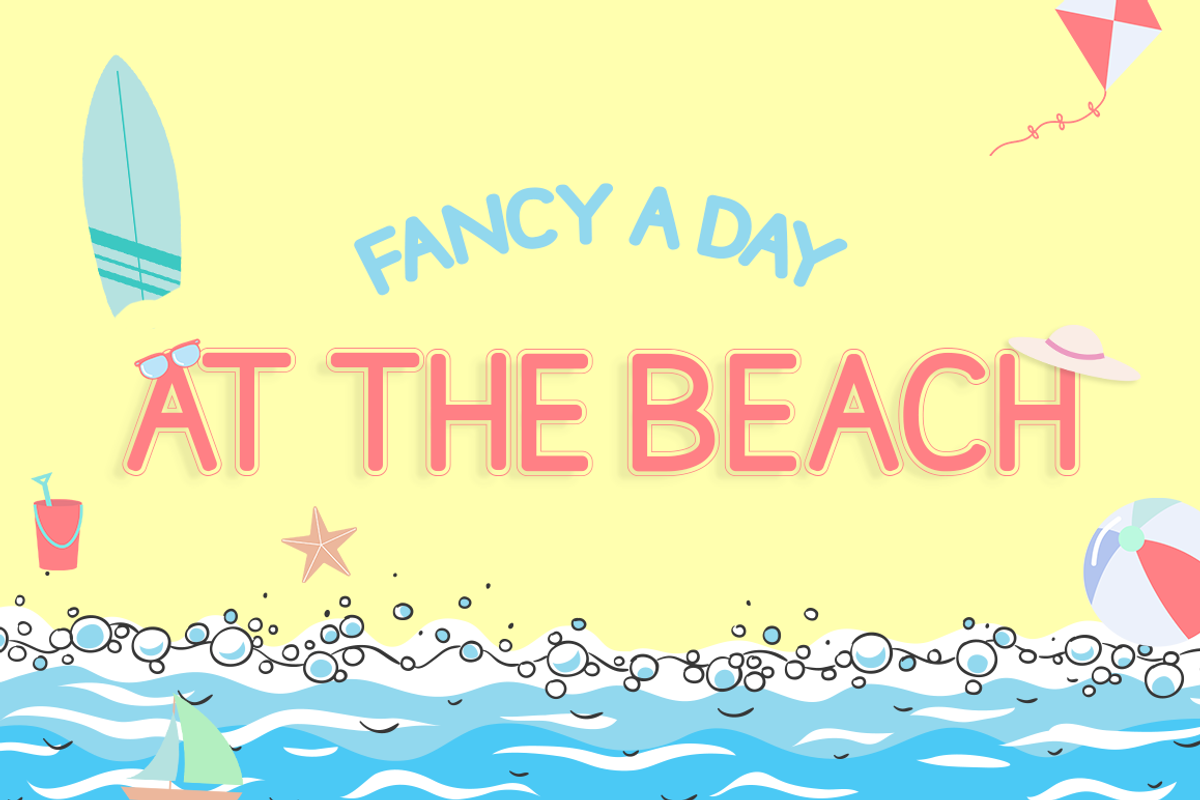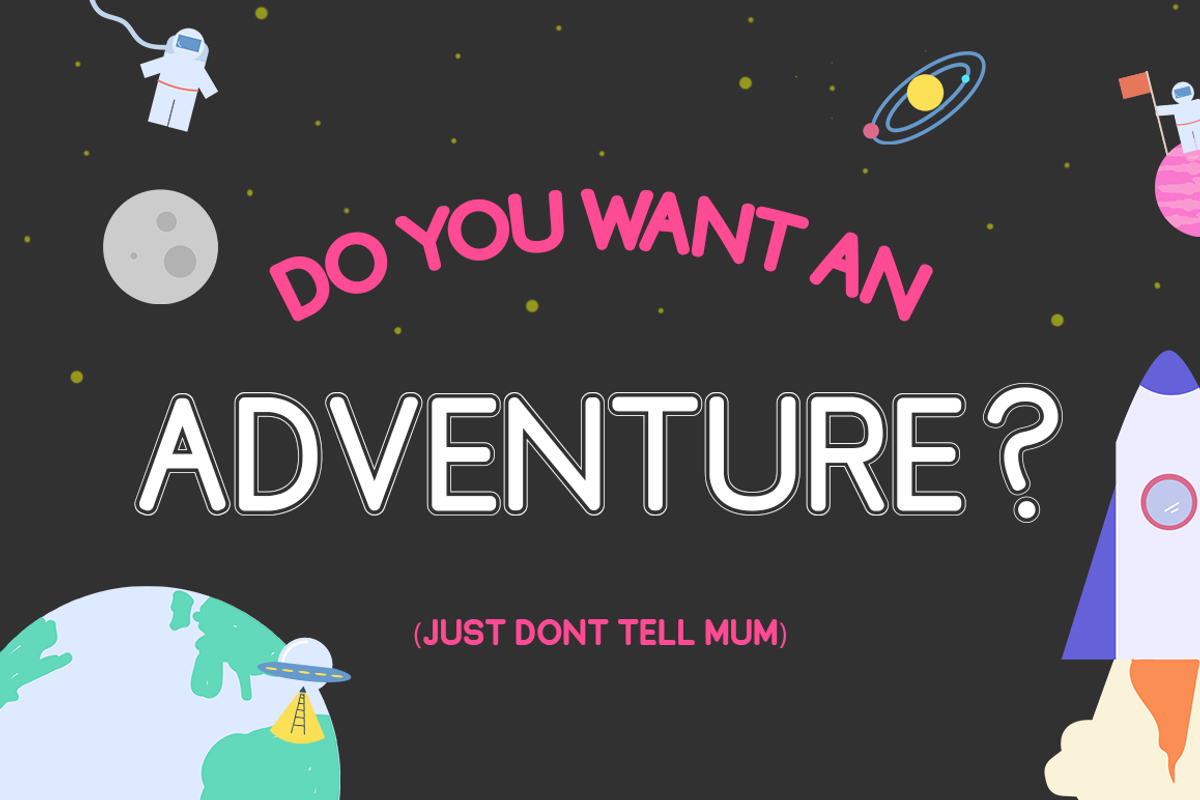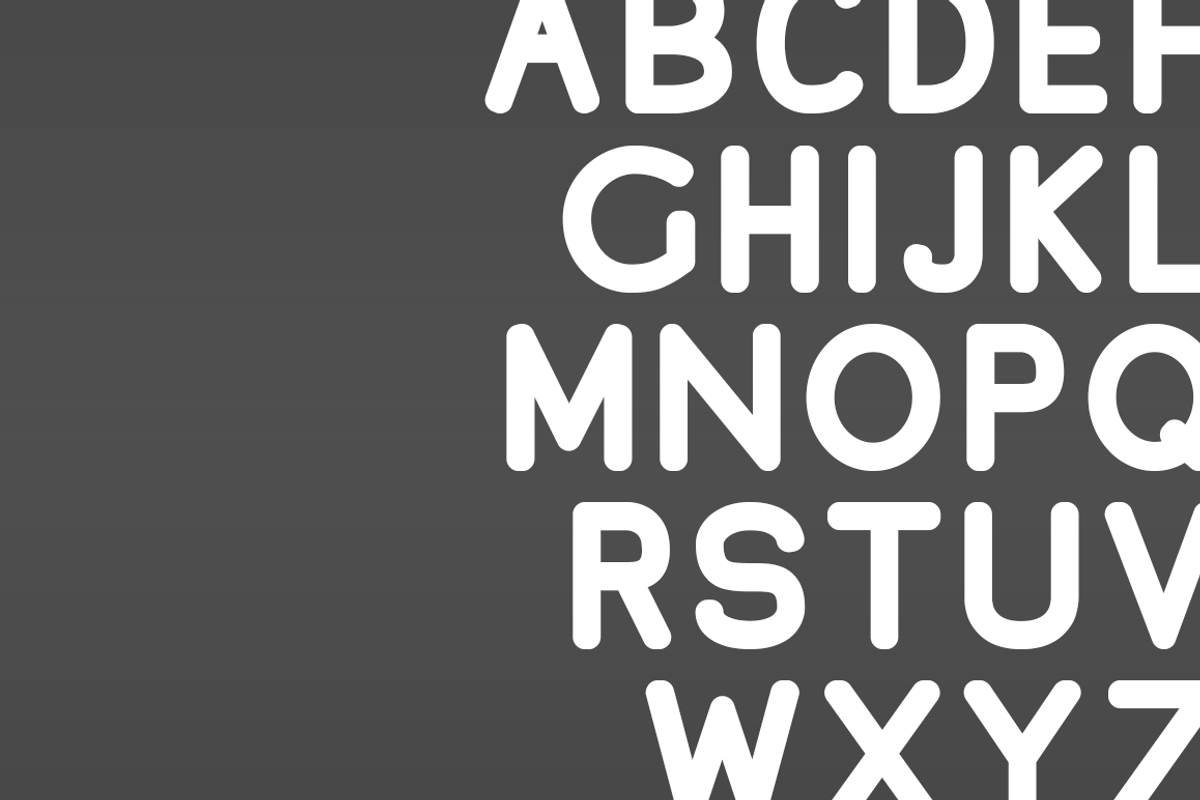
Chunky Monkey Font Duo
Introducing our latest creation Chunky Monkey, a duo of fonts in a single font file. Use the uppercase letters to display the thin outlined version (shown in the word Chunky above) and the lowercase letters for the more bold chunky text (shown in the word Monkey above)
- Use the uppercase letters to display the thin outlined version (shown in the word Chunky above) and the lowercase letters for the more bold
Why Chunky Monkey Font Duo is worth a look
Chunky Monkey Font Duo by Salt & Pepper Designs fits naturally into Branding, posters, packaging, typography.